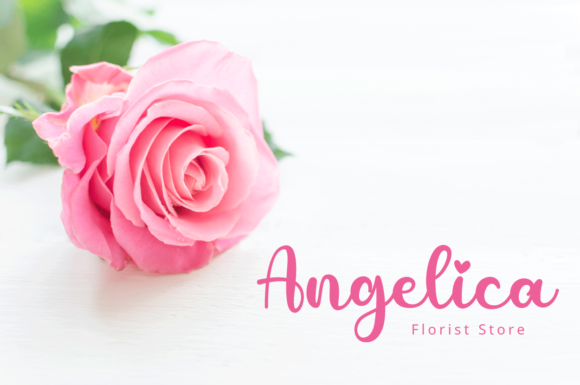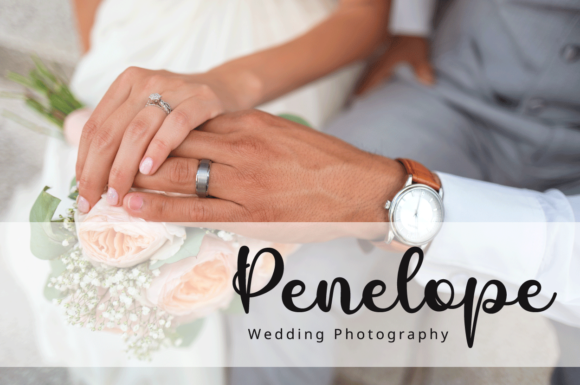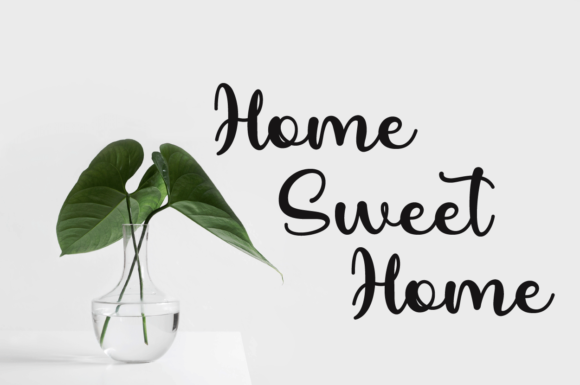
About Rosalie Font
Rosalie is a modern script font created in a calligraphic style. Its friendly feel makes this font incredibly versatile, fitting a wide range of contexts. It looks stunning on thank you cards, quotes, greeting cards, logos, business cards, and so much more! This font is PUA encoded which means you can access all of the glyphs and swashes with ease!